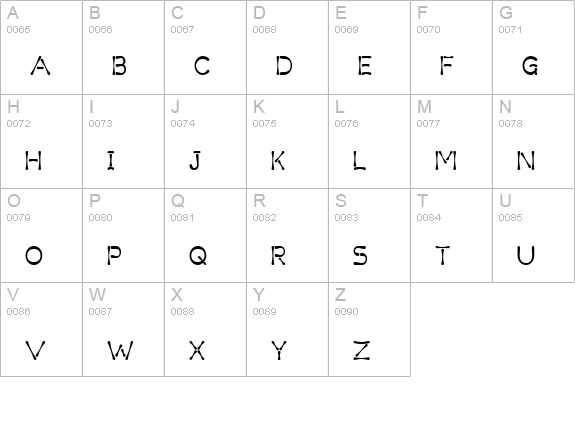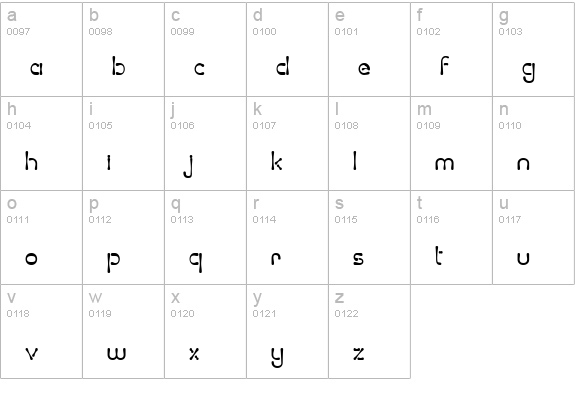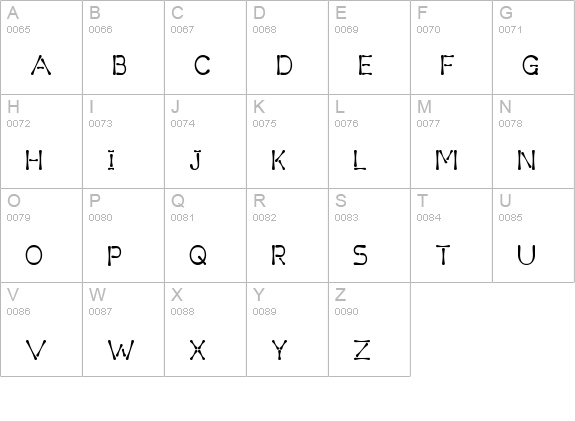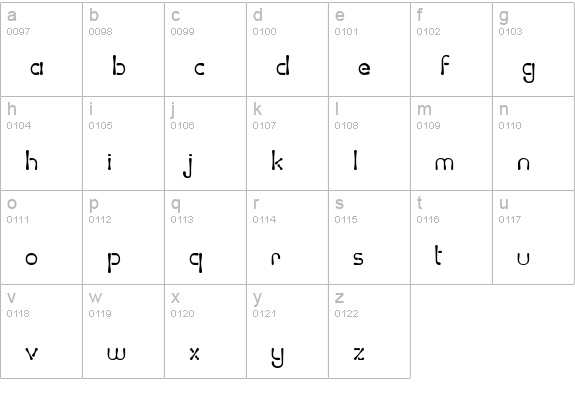
Variant 4 GeM Font Details
Introducing Variant 4 GeM, a stunning font that combines elegance and modernity, perfect for adding a touch of sophistication to any design project. This versatile typeface showcases a unique blend of contemporary geometric shapes with subtle curves, resulting in a harmonious balance that captivates the eye. Variant 4 GeM's sleek and stylish appearance is enhanced by its precise lines and clean edges, making it an ideal choice for both display purposes and body text. Whether you are designing a logo, creating a website, or crafting a promotional flyer, this font will effortlessly elevate your work to new heights. But what sets Variant 4 GeM apart is not just its aesthetic appeal; it is also the fact that it is freely available to download at FontsMarket.com. Yes, you read that right – this exceptional font can be yours without any cost. Now you can enjoy the beauty and functionality of Variant 4 GeM without breaking the bank. With its extensive character set, including uppercase and lowercase letters, numerals, punctuation marks, and a variety of special characters, Variant 4 GeM offers endless possibilities for creative expression. Its legibility and readability ensure that your message will be conveyed clearly and effectively, no matter the context. Enhance your design projects with Variant 4 GeM, the font that effortlessly combines sophistication and versatility. Download it for free at FontsMarket.com, and unlock the potential to create visually stunning and impactful designs. Let Variant 4 GeM be the secret weapon in your design arsenal, taking your creativity to new horizons.